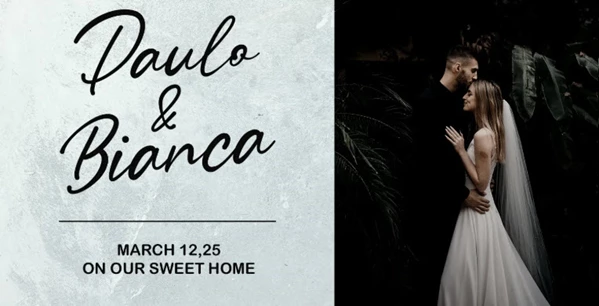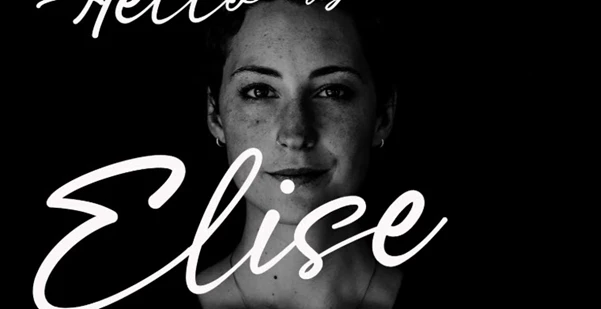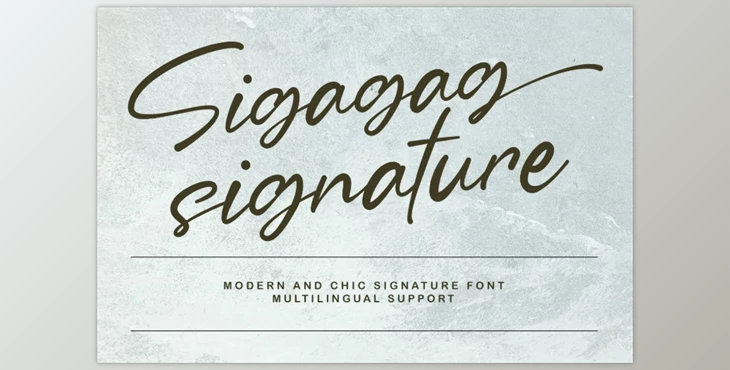
Maulana Creative - Sigagag Signature Display Font:
Sigagag Signature Display Font is well known for its uniquely authentic style, thanks to Maulana Creative. The brush style is applicable in sign making and adds authentic touches to various business stationery items, logo designs, typography, quotes, website headers, and aid branding material; creativity is the limit.
- The design of Sigagag is created with a brush thus giving a personal touch that is highly different from other fonts.
- It is ideal for accentuating the elegance of signatures, logos, and other forms of branding.